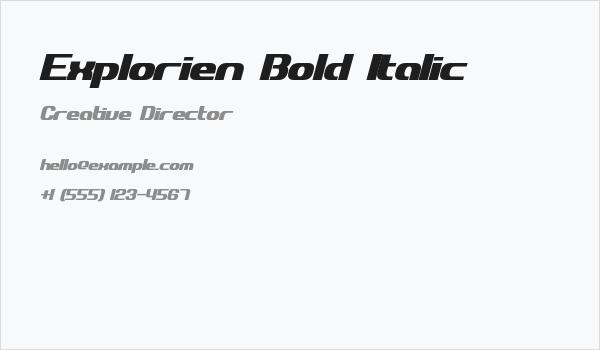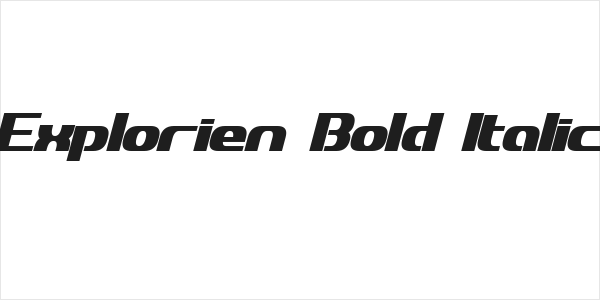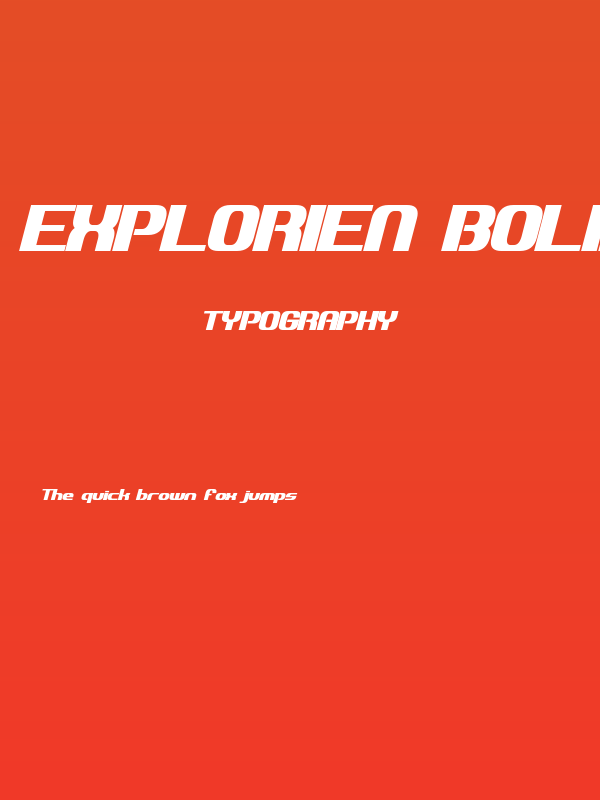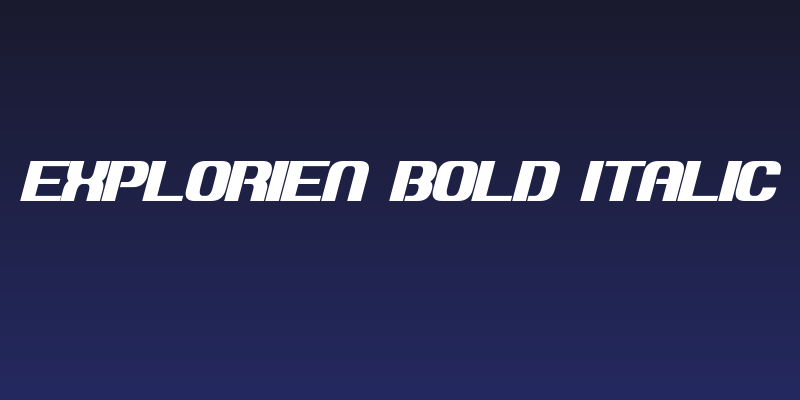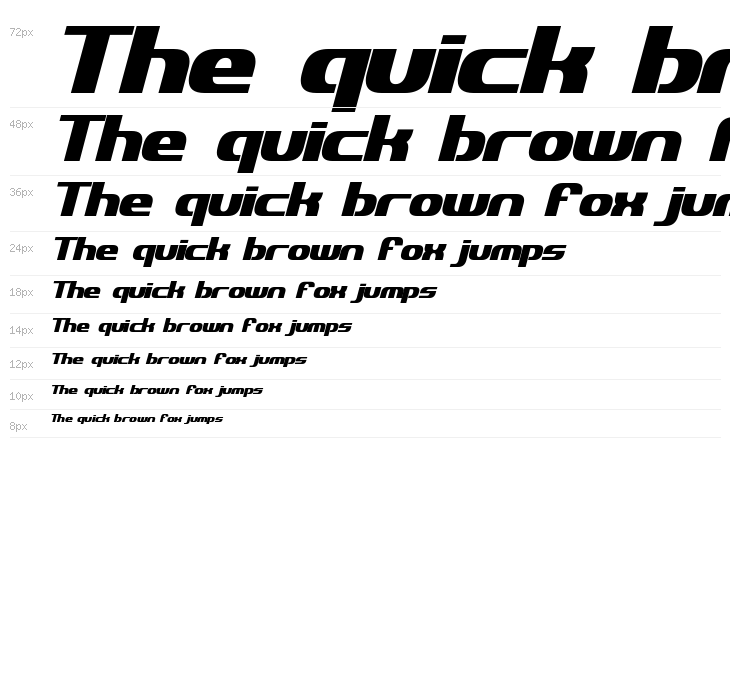
Explorien Bold Italic Font
Explorien Bold Italic Description
This font features a bold and italicized style with a modern and dynamic appearance. The characters are slightly slanted, giving a sense of motion and energy. The strokes are thick, providing a strong visual impact, while the overall design maintains a sleek and streamlined look. The uppercase and lowercase letters are consistent in style, with a uniform width that enhances readability. The numbers and special characters are designed to match the bold and italicized theme, ensuring a cohesive appearance across all elements.
| Proposed Projects | Ideal for sports branding, dynamic advertising, modern posters, and tech-related designs. |